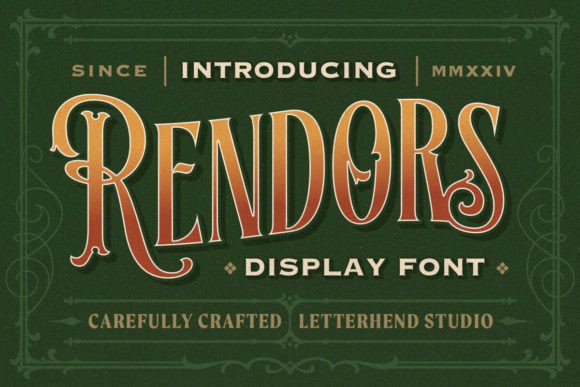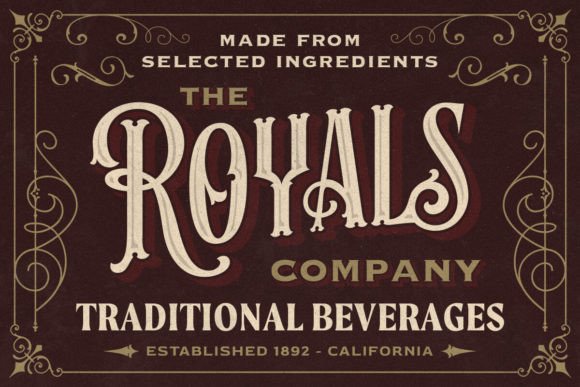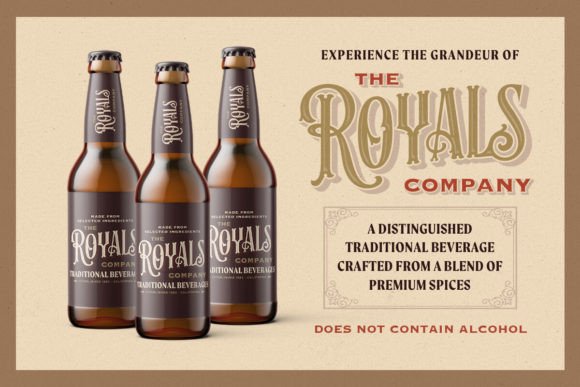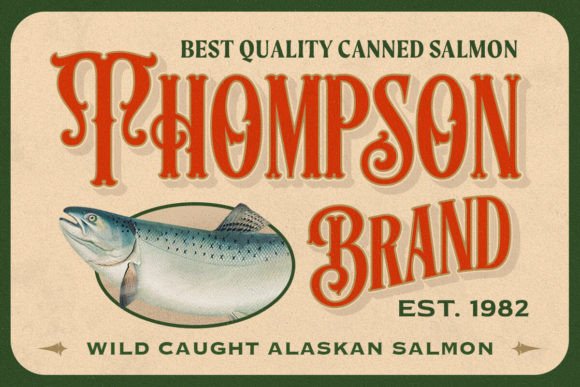
Ronders Font: Bold Vintage Typography for Retro Branding & Logo Design
About the Ronders Font
The Ronders Font is here to transform your projects with its distinctive character and style. Ronders is a typeface which is inspired by vintage lettering sign and art. While this font has a victorian touch, it still looks bold and solid. Very suitable for for headline, logotype, apparel, invitation, branding, packaging, advertising etc with old school / retro theme.
Ronders’ bold, vintage-inspired aesthetic makes it ideal for headlines, logos, and short-form text in branding materials, packaging, and posters. Its strong presence commands attention, perfect for projects needing a retro or classic feel. Avoid using Ronders for body text or long paragraphs; its weight and character can become overwhelming in extended reading.
Consider pairing Ronders with a clean sans-serif like Montserrat for a modern contrast, or a delicate script font such as Great Vibes for a touch of vintage elegance. For a more grounded feel, a neutral serif like Garamond could work well. The pairings should complement Ronders’ strength while adding readability and visual balance.
Its core personality is bold and assertive yet retains a classic charm. Therefore, brands seeking to project a heritage or established quality, with a touch of vintage flair, would find Ronders particularly effective. Think artisanal goods, whiskey brands, or boutique hotels.
Ronders Font Usage Examples